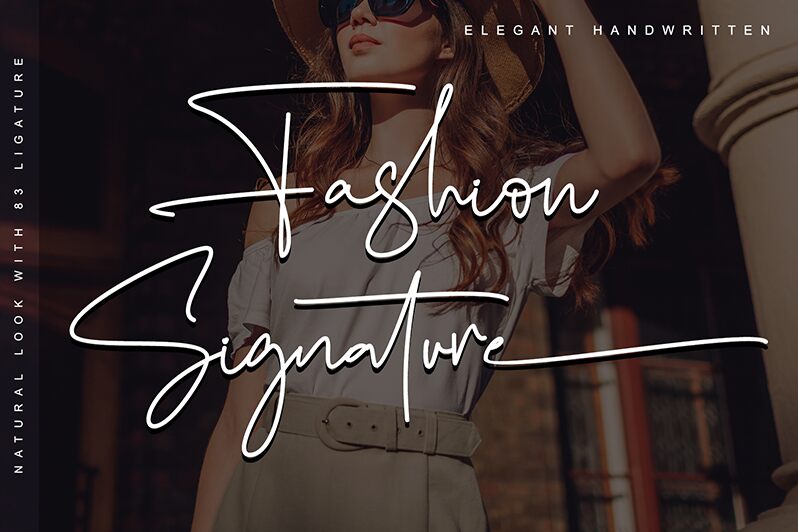
Fashion Signature by Letterara is a font that exudes elegance and personal touch, akin to the fluidity of an ink pen gliding across parchment. Its handwritten, signature style lends itself to a sense of authenticity and sophistication, making it an impeccable choice for branding that aims to be both personable and chic. The light strokes give this font a delicate and airy quality, reminiscent of high-end fashion labels and upscale personal stationery.
Perfect for invitations, logos, or any project that calls for the distinctive flair of a personal signature, Fashion Signature adds a bespoke charm. Whether gracing the pages of a boutique catalog or the header of an exclusive event announcement, this font carries an aesthetic capable of turning the ordinary into something memorably stylish.